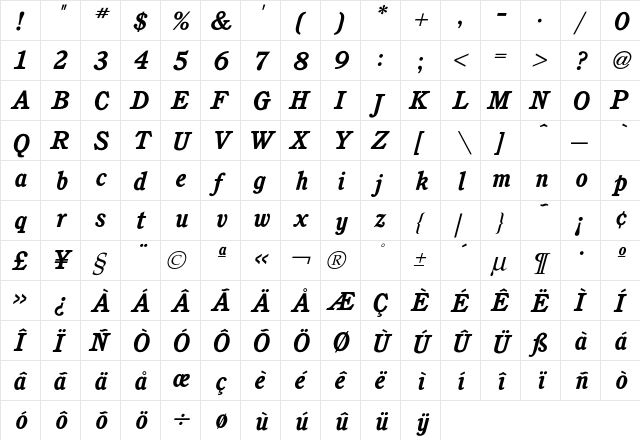
Cushing BoldItalic Font Preview
Cushing BoldItalic
Cushing BoldItalic Font Details
Design Context for Cushing Typeface
Cushing is a composed and adaptable typeface that performs quietly and consistently across a wide range of design contexts. The slanted form adds forward momentum and visual energy. The heavy weight commands attention and anchors typographic hierarchies.
Pro Tip: Use Cushing for emphasis, pull quotes, and subheadings where its slanted energy can add rhythm to the layout.